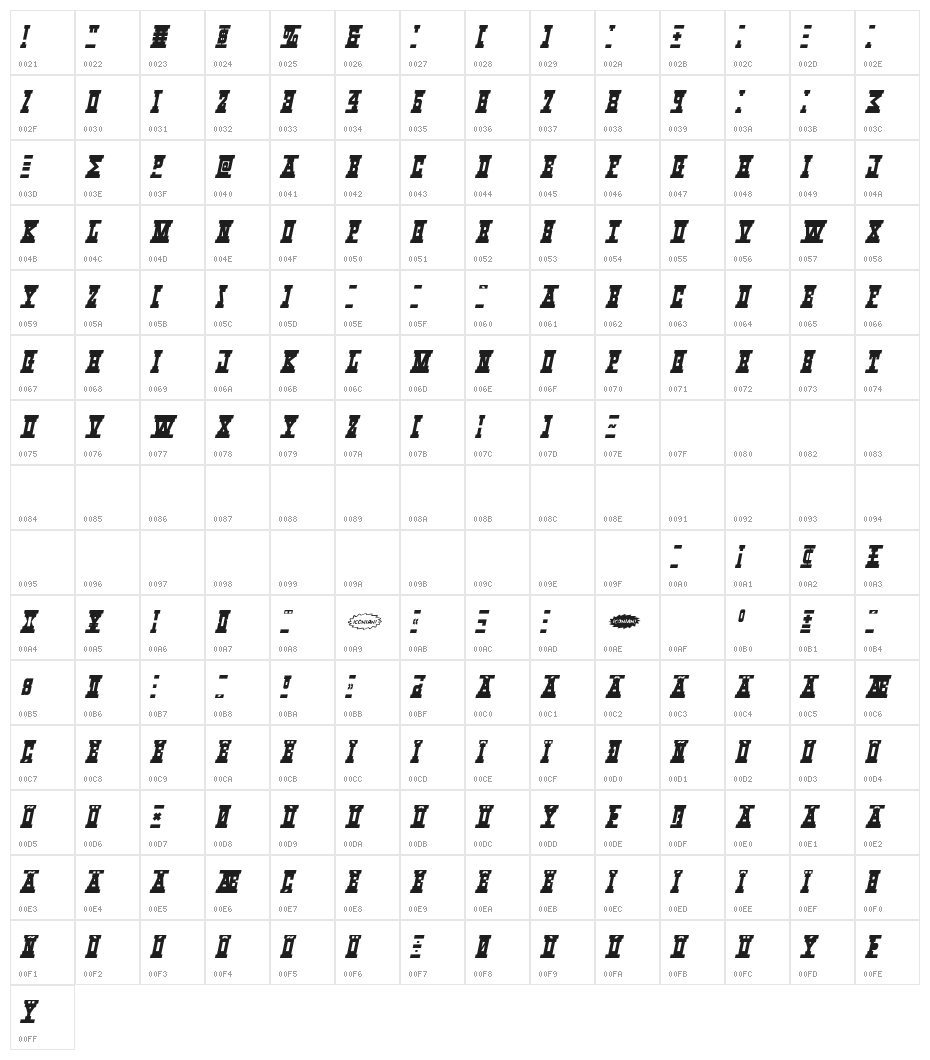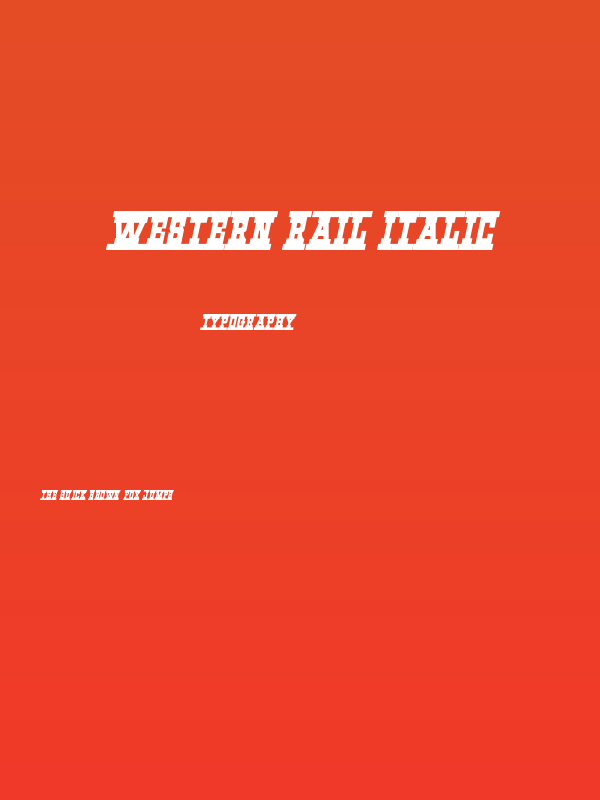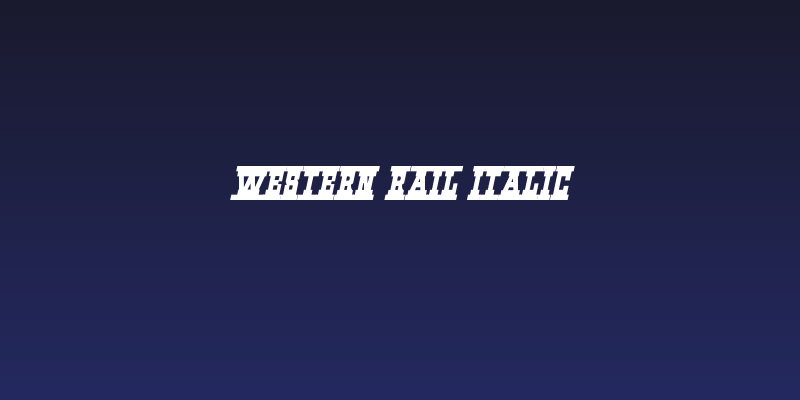
Western Rail Italic Font
Western Rail Italic Description
This font features a bold and dynamic style with a distinct Western flair. The characters are italicized, giving them a sense of motion and energy. The design incorporates sharp angles and strong lines, reminiscent of classic Western typography often seen in old saloon signs or wanted posters. The uppercase and lowercase letters maintain a consistent style, with the uppercase being slightly more pronounced. Numbers and special characters are designed to match the bold aesthetic, ensuring a cohesive look across all text. The font's unique style makes it ideal for projects that require a touch of the Wild West or a vintage Americana feel.
| Proposed Projects | Ideal for Western-themed posters, vintage advertisements, movie titles, or any design needing a bold, dynamic touch. |